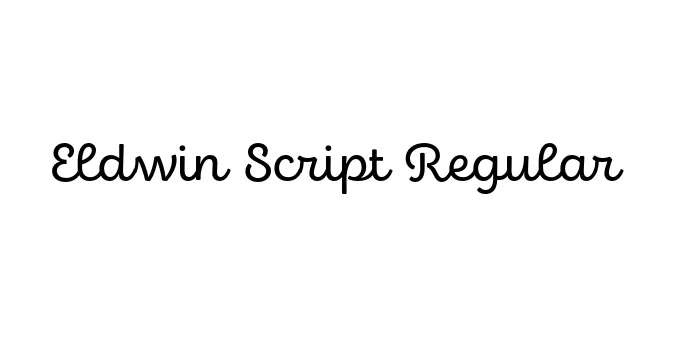
Eldwin Script Regular
Designed by Kimmy Kirkwood
Eldwin Script Regular is a charming and hand-drawn typeface family designed by Kimmy Kirkwood of Kimmy Design. It was developed to capture the warmth and approachability of traditional sign painting and friendly, hand-lettered notes. The font features fluid connections and organic strokes that mimic the natural movement of a brush or felt-tip marker, providing an authentic, artisanal feel to any creative project.
Part of the broader Eldwin superfamily, the Script Regular weight is meticulously crafted to balance personality with legibility. It is particularly effective when used for display purposes, editorial headlines, and packaging where a sense of craft and human touch is required. Its versatile nature allows it to transition seamlessly between vintage aesthetics and contemporary digital design environments.
Eldwin Script Regular Best Uses
Excellent for creating approachable and warm visual identities for small businesses.
Ideal for artisanal food, beverage labels, and craft product packaging.
Perfect for adding a personal touch to wedding stationery and event announcements.
Highly effective for eye-catching quotes and lifestyle graphics.